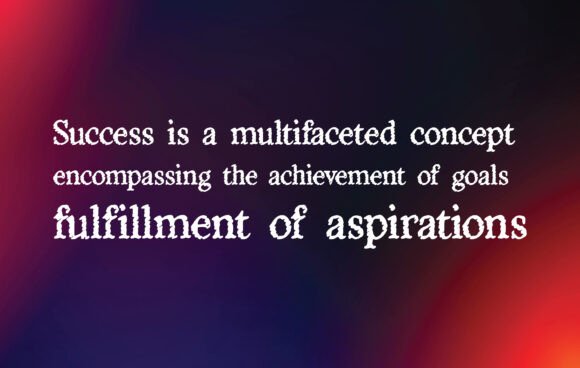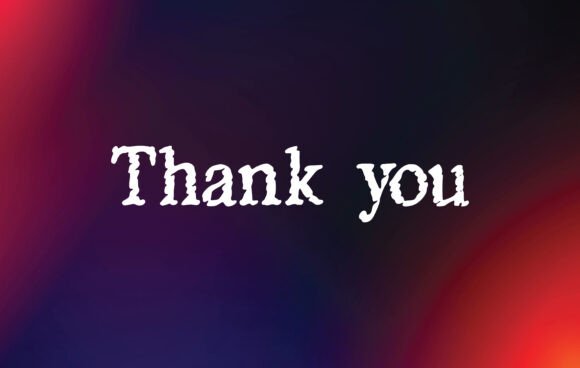
The Brittany Font: Your New Go-To for Creative Projects
I’ll never forget the design struggle is real moment I had last year. I was working on a magazine cover, and my client had a very specific vision – elegant, yet playful, with a dash of sophistication. The problem was, I was stuck on finding the perfect font. I scrolled through pages of Google Fonts, tried out a dozen different options, but none seemed quite right. That was until I stumbled upon the Brittany Font. It was like a breath of fresh air – clear, easy to read, and oh-so-versatile. In this article, I’ll share my love for this font, its features, and how you can make the most of it in your creative projects.
Here’s what makes the Brittany Font a standout:
- ✨ Versatility: It’s perfect for both titles and body text, making it a great all-rounder for any project.
- ✅ Readability: The font is clear and easy to read, even at smaller sizes.
- 💫 Elegance: It adds a touch of sophistication to any design, from wedding invitations to magazine covers.
- 🎨 Style and Personality: It fits right in with style and personality, making your designs pop.
And, like any font, it’s not without its quirks:
- 🤔 Limited use in very small sizes: While it’s generally readable, it might not be the best choice for body text in very small sizes (think 8pt or smaller).
- ⚠️ Some letters may appear too ornate: Depending on your design, some letters (like the lowercase ‘a’ or ‘e’) might appear too ornate or stylized.
- Experiment with OpenType features like ligatures and stylistic alternates to add some flair to your text.
The Story Behind Brittany Font
The Brittany Font was designed with versatility in mind. Its creator aimed to craft a font that could be used across various platforms and projects, from elegant wedding invitations to bold magazine covers. The result is a font that’s both stylish and practical.
Q: What makes the Brittany Font so versatile?
A: The Brittany Font is designed to be clear and easy to read, making it perfect for both titles and body text. Its elegant yet playful style fits well with a variety of design projects.
Q: Is the Brittany Font suitable for body text?
A: While it’s generally readable, it might not be the best choice for very long body text or small sizes. It’s best used for titles, headings, or short paragraphs.